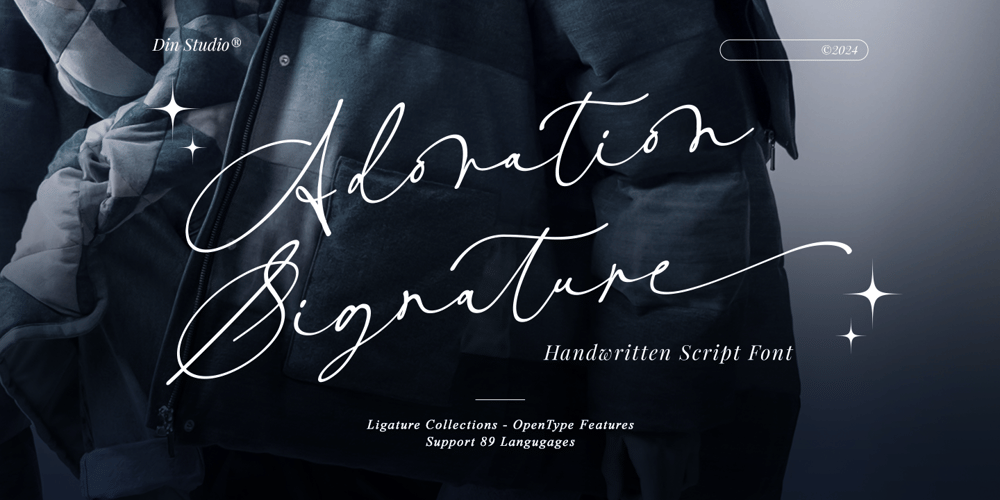
Adoration Signature Font Family was designed by Donis Miftahudin and published by Din Studio. Adoration Signature contains 1 styles and family package options. Adoration Signature is a captivating handwritten font that brings a personal touch to your designs. Made in thin weight, the letters are elegantly connected, creating a flowing and organic script. The inconsistent letter proportions add a charming and authentic feel, imbuing each word with character and individuality. In addition, enjoy the features here.Features: Ligatures Stylistic Sets Multilingual Supports PUA Encoded Numerals and Punctuations Adoration Signature fits in logos, posters, flyers, branding materials, print media, editorial layouts, and many more designs. Find out more ways to use this font by taking a look at the font preview.Thanks for purchasing our fonts. Hopefully, you have a great time using our font. Feel free to contact us anytime for further information or when you have trouble with the font. Thanks a lot and happy designing.